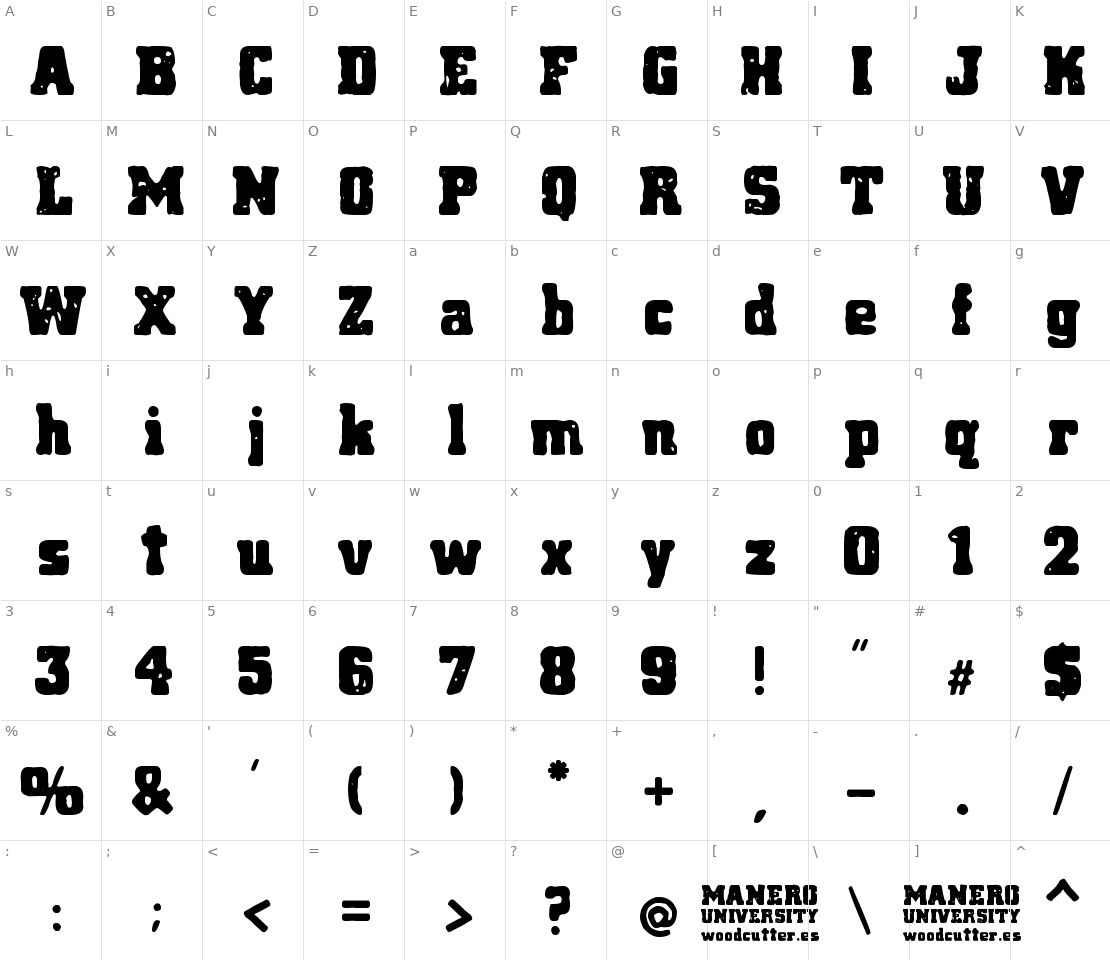
Manero University
Manero University is a heavy, roughed-up display face from Woodcutter with thick letterforms that look stamped, worn, and slightly battered. There's a western poster quality to the chunky proportions and distressed texture, like old broadside type that's been through a few decades of weather. Best kept to headlines and short bursts where you want something bold with visible mileage.